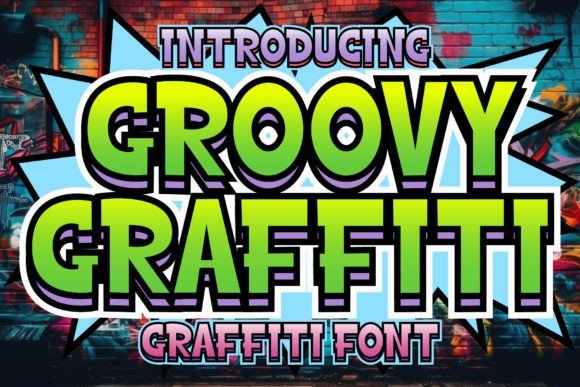
Get Ready to Unleash Your Creativity with Groovy Graffiti Font
Enter the Groovy Graffiti Font, a bold and thick lettered display font that’s sure to add a touch of street art flair to any design. This font is perfect for creating eye-catching posters, flyers, and prints that demand attention. With its endless possibilities, you’ll be able to bring your most ambitious projects to life and make a lasting impression on your audience.
- Character Set: The font includes a comprehensive set of characters, including uppercase and lowercase letters, numbers, punctuation marks, and special characters, making it suitable for various design applications.
- Unique Characteristics: Groovy Graffiti Font features a distinctive graffiti-inspired style, with bold lines, vibrant colors, and a playful feel that adds a touch of urban charm to any design.
- Font Style and Weight: The font includes various styles and weights, including regular, bold, italic, and bold italic, providing designers with a range of options to achieve the desired look and feel.
Designer Review: Groovy Graffiti Font
I’ve had the chance to play around with the Groovy Graffiti Font, and here are my honest thoughts.
- Fun, playful vibe – perfect for a retro or hipster-inspired design project.
- Good for headings and titles, adding a pop of color and energy to your layout.
- The font is highly customizable, with a range of styles and effects available.
- May not be the best choice for body text, as it can be difficult to read at smaller font sizes.
- The font’s boldness can be overwhelming if used too extensively.
- Some users may find the font too playful or gimmicky for more serious design projects.
The Groovy Graffiti Font is a fun and eye-catching addition to any design project. While it may not be suitable for all types of projects, it’s perfect for those looking to add a playful touch. With its high level of customization and versatility, this font is sure to be a hit with designers looking to add some visual interest to their work.
The Groovy Graffiti font is perfect for:
- Adding a fun and playful touch to your designs.
- Creating eye-catching social media posts and flyers.
- Designing street art-inspired graphics and illustrations.
For best results, pair the Groovy Graffiti font with bold, bright colors and playful graphics.
1. Comic Sans MS
Comic Sans MS is a playful, informal font that is suitable for casual and creative designs. It is often used for posters, flyers, and other marketing materials. Compared to Groovy Graffiti Font, Comic Sans MS has a more rounded and childlike appearance, making it ideal for family-friendly or humorous content.
Pacifico is a modern, elegant font with a relaxed feel. It is often used for branding, packaging, and advertising materials. In comparison to Groovy Graffiti Font, Pacifico has a more refined and sophisticated appearance, making it suitable for luxury or high-end brands.